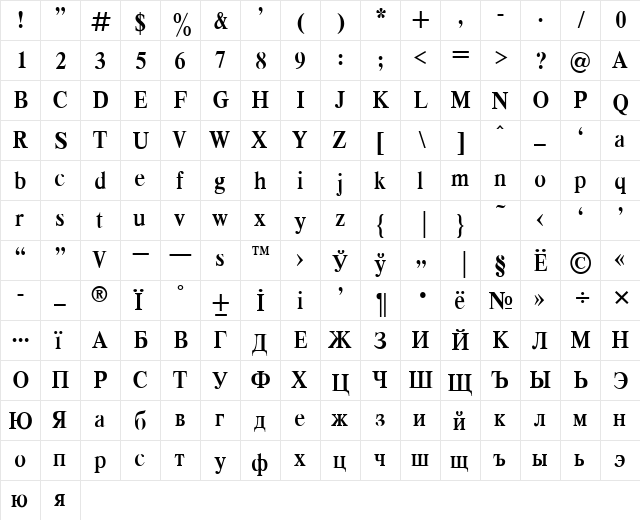
Respect Narrow Bold Font Preview
Respect Narrow Bold
Design Context for Respect Typeface
Respect is a composed and adaptable typeface that performs quietly and consistently across a wide range of design contexts. Its bold stroke weight gives it real presence on the page. The condensed width makes it efficient for tight spaces without sacrificing legibility.